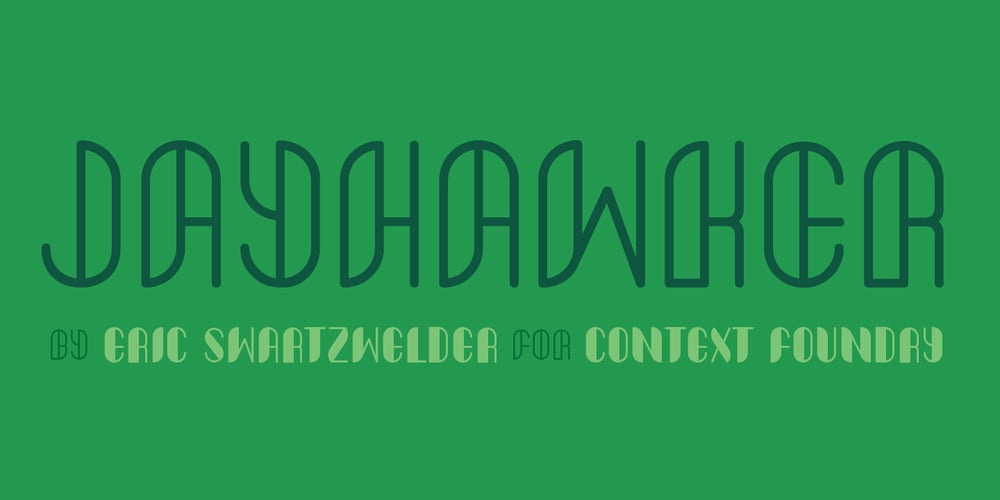
Jayhawker
Jayhawker font
Jayhawker Font Family was designed by Eric Swartzwelder and published by Context. Jayhawker contains 2 styles and family package options. A super-stylized retro display face for headlines, posters, drop caps and other basic-but-oversized uses.